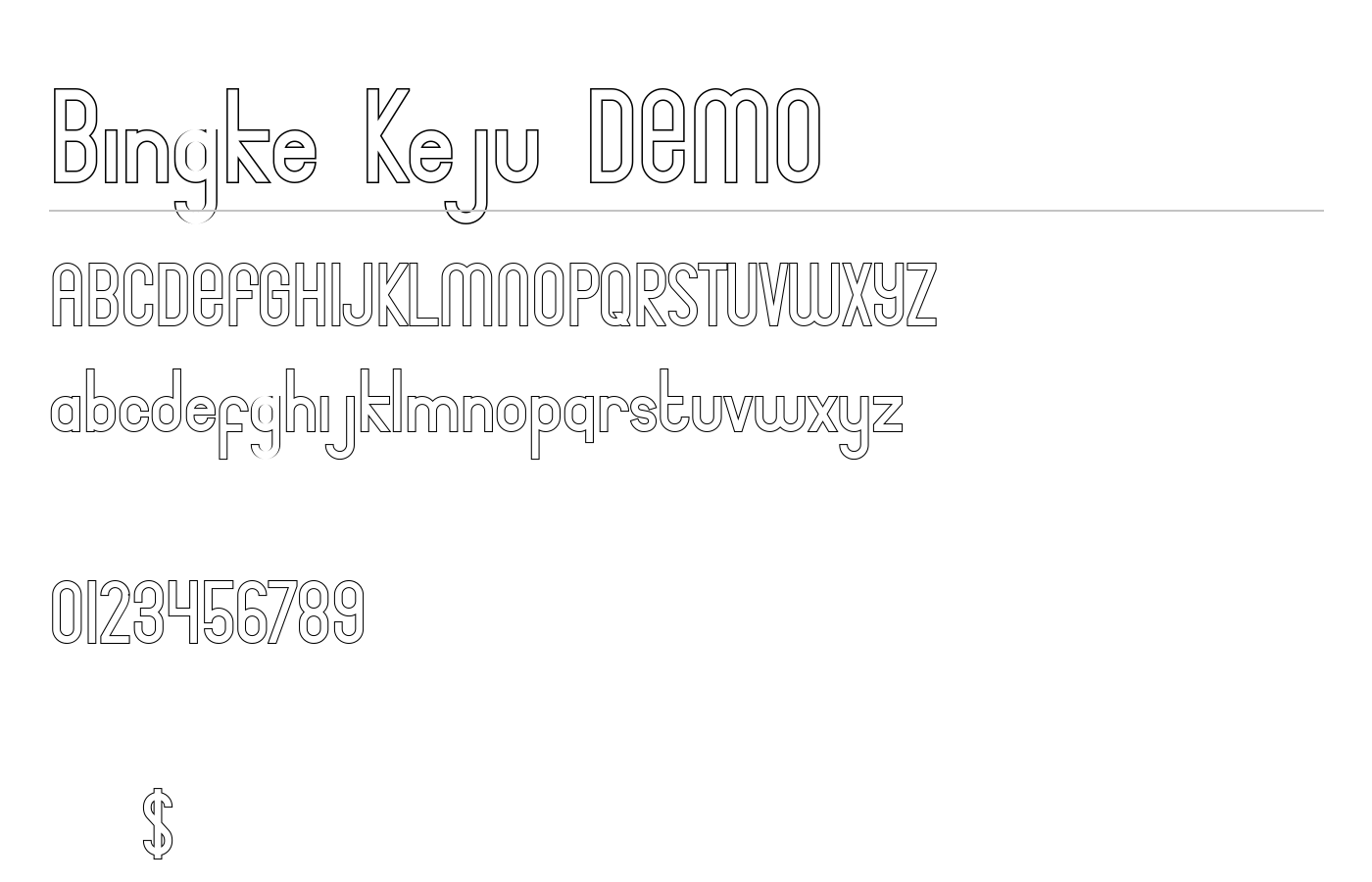
Bingke Keju DEMO is a tall, narrow sans serif font with clean, geometric lines and a lightweight, outlined style that gives it a modern and minimalist feel. Its uniform stroke width and unique letter shapes make it best suited for headlines, logos, and contemporary branding where a sleek, stylish appearance is desired. This font works well in designs that need a distinctive, futuristic touch with a hint of elegance.
| Font family | Bingke Keju DEMO Font |
| Designer | Purnomo, Taufik Dwi @ Nariswari Creative |